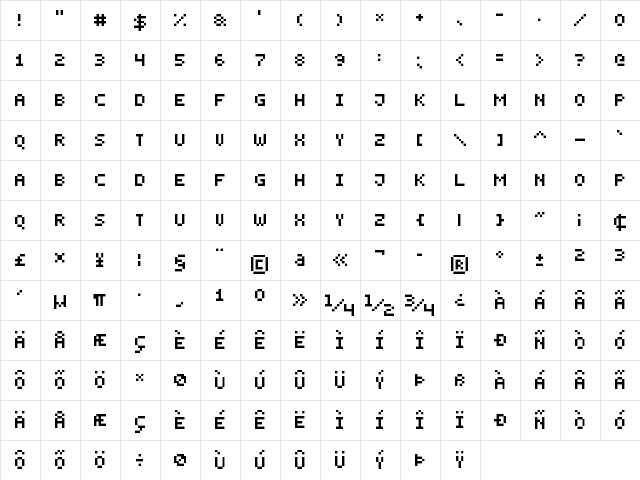
Smallest Pixel-7 Regular
| Foundry | Style-7 |
| Designer | Sizenko Alexander |
Design Context for Smallest Pixel-7 Typeface
Smallest Pixel-7 is rooted in pixel-grid construction, making it a natural fit for game UI, retro computing aesthetics, and digital nostalgia projects.
Well-suited to indie game interfaces, retro computing aesthetics, and pixel art-adjacent design work.
Pro Tip: Use Smallest Pixel-7 at sizes that align with its pixel grid for the sharpest rendering — scaling to non-integer multiples can introduce unwanted blur.